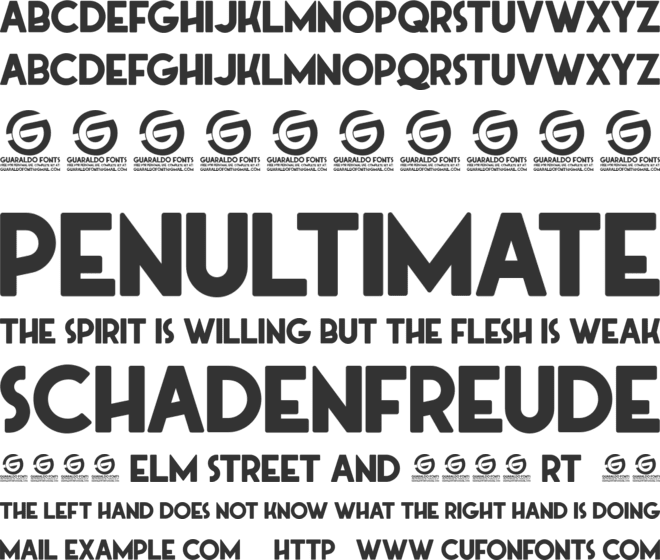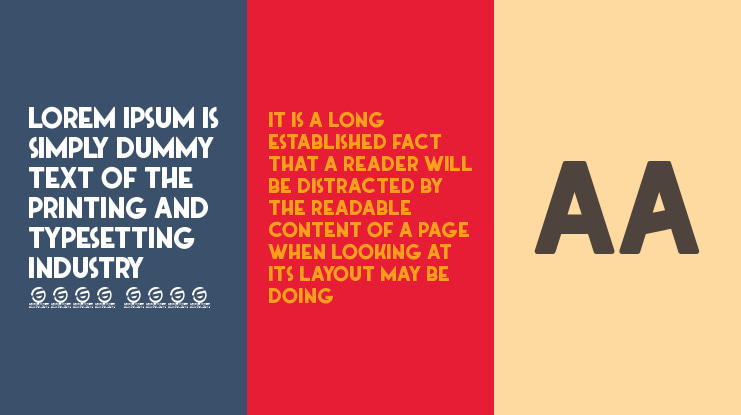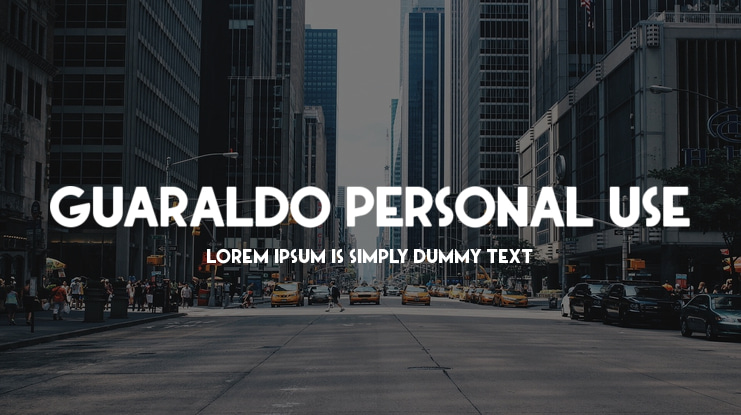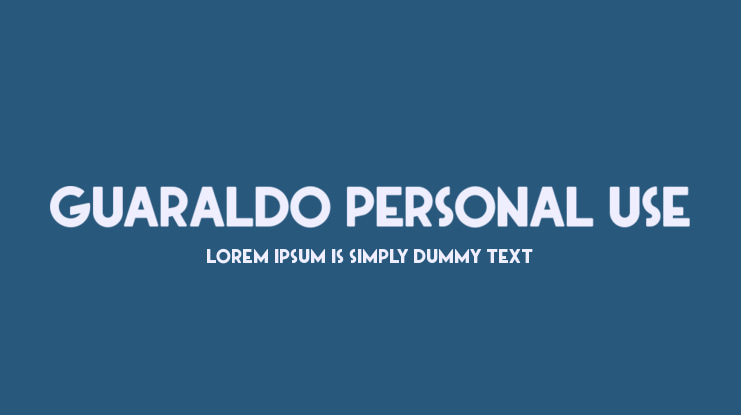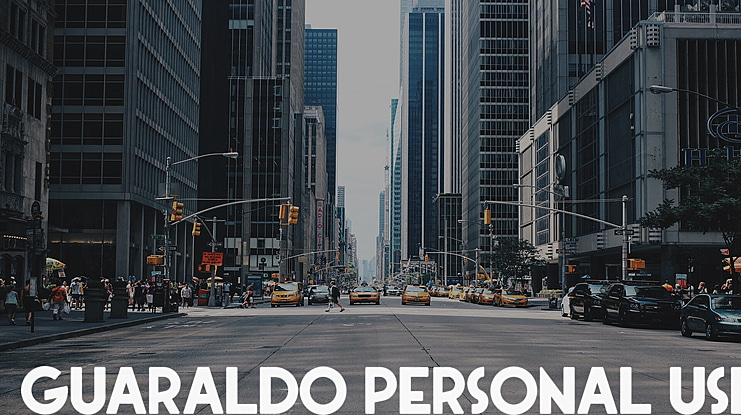
Guaraldo Personal Use Font
Mathias Guaraldo
This is my first font. Kinda art deco, mixed up with some modern inspirations. Guaraldo Font includes Q, A, S, G e B variations. Hope you enjoy it!